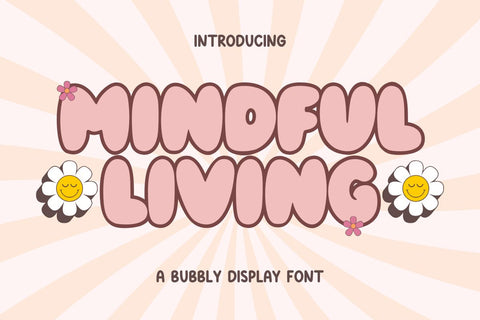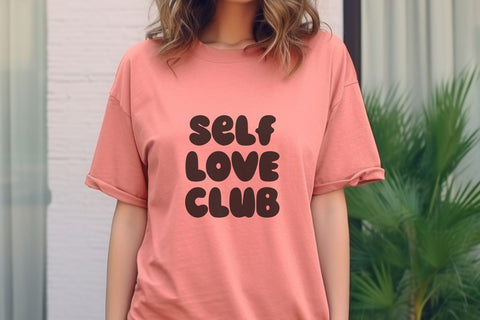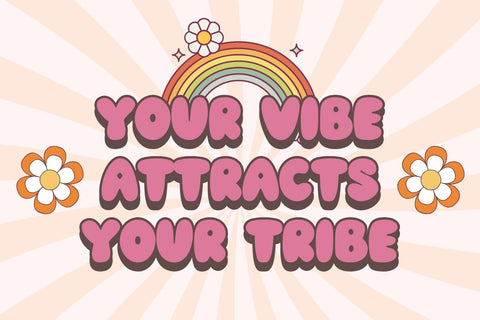
Mindful Living - Pretty Bubble Retro Font
Mindful Living is a cute pretty bubble retro font. This font is perfect for cricut projects, logos, shirts, svg files, planners, stickers, quotes, social media and more!